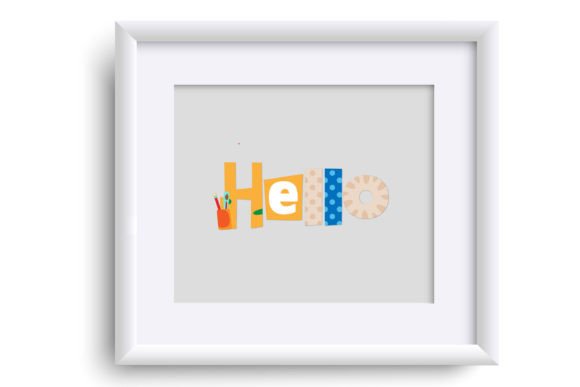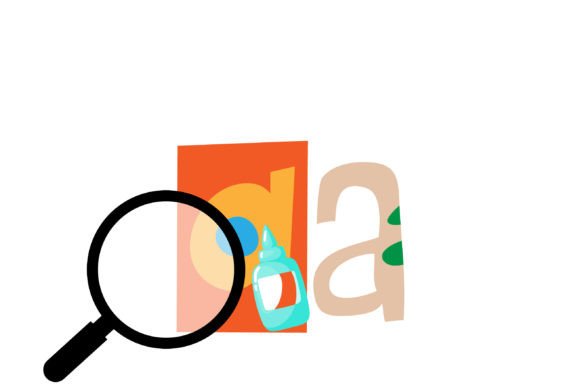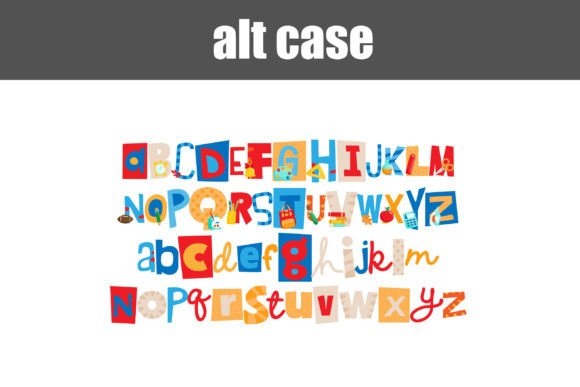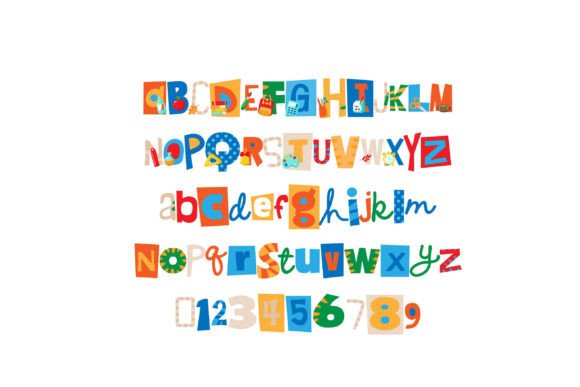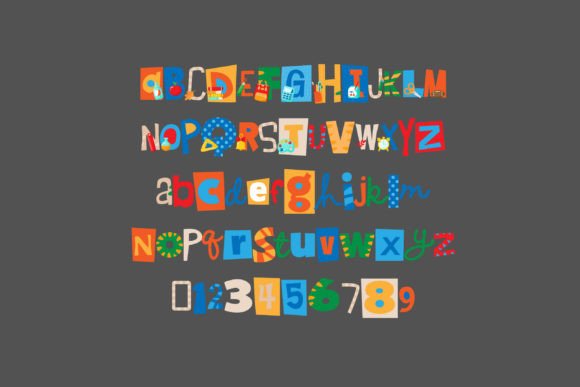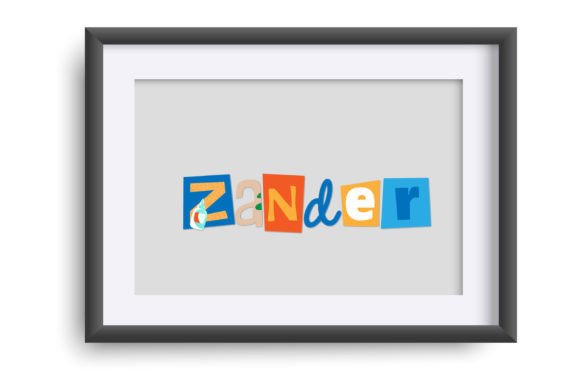
Introducing the Creative Classroom Font: A Colorful Addition to Your Design Arsenal
Are you a designer, teacher, or crafter looking for a unique and engaging font to elevate your projects? Look no further than the Creative Classroom Font! This innovative font features a playful design infused with school supplies, making it perfect for educational materials, classroom decor, and creative projects.
A Font that’s Full of Color and Character
The Creative Classroom Font is a full-color font that showcases a creative and whimsical design. The font features school supplies throughout, adding a fun and playful touch to any project. But that’s not all – this font also comes with an alt case that offers additional colors, accessible through your system’s character map.
Ideal for Titles, Displays, and Posters
This font is specifically designed for use in titles, displays, posters, and more. Its bold and colorful design makes it perfect for grabbing attention and adding visual interest to your projects. Whether you’re creating educational materials, designing classroom decor, or crafting party invitations, the Creative Classroom Font is sure to make a statement.
The Benefits of Full-Color SVG Fonts
Full-color SVG fonts, like the Creative Classroom Font, offer a range of benefits for designers and crafters. For one, they provide a unique and engaging way to add visual interest to projects. They’re also incredibly versatile, making them suitable for a wide range of applications, from educational materials to party decorations.
Tips for Using the Creative Classroom Font
Here are a few tips for getting the most out of the Creative Classroom Font:
- Use it for titles and headings to add a pop of color and visual interest
- Experiment with different colors and combinations to create unique effects
- Pair it with other fonts for a bold and playful look
- Use it for classroom decor, such as creating colorful posters or banners
The Creative Classroom Font is a fun and engaging font that’s perfect for designers, teachers, and crafters. With its colorful design and versatility, it’s an excellent addition to any project. Whether you’re creating educational materials, classroom decor, or party invitations, this font is sure to make a statement. So why not give it a try and see what creative possibilities you can come up with?